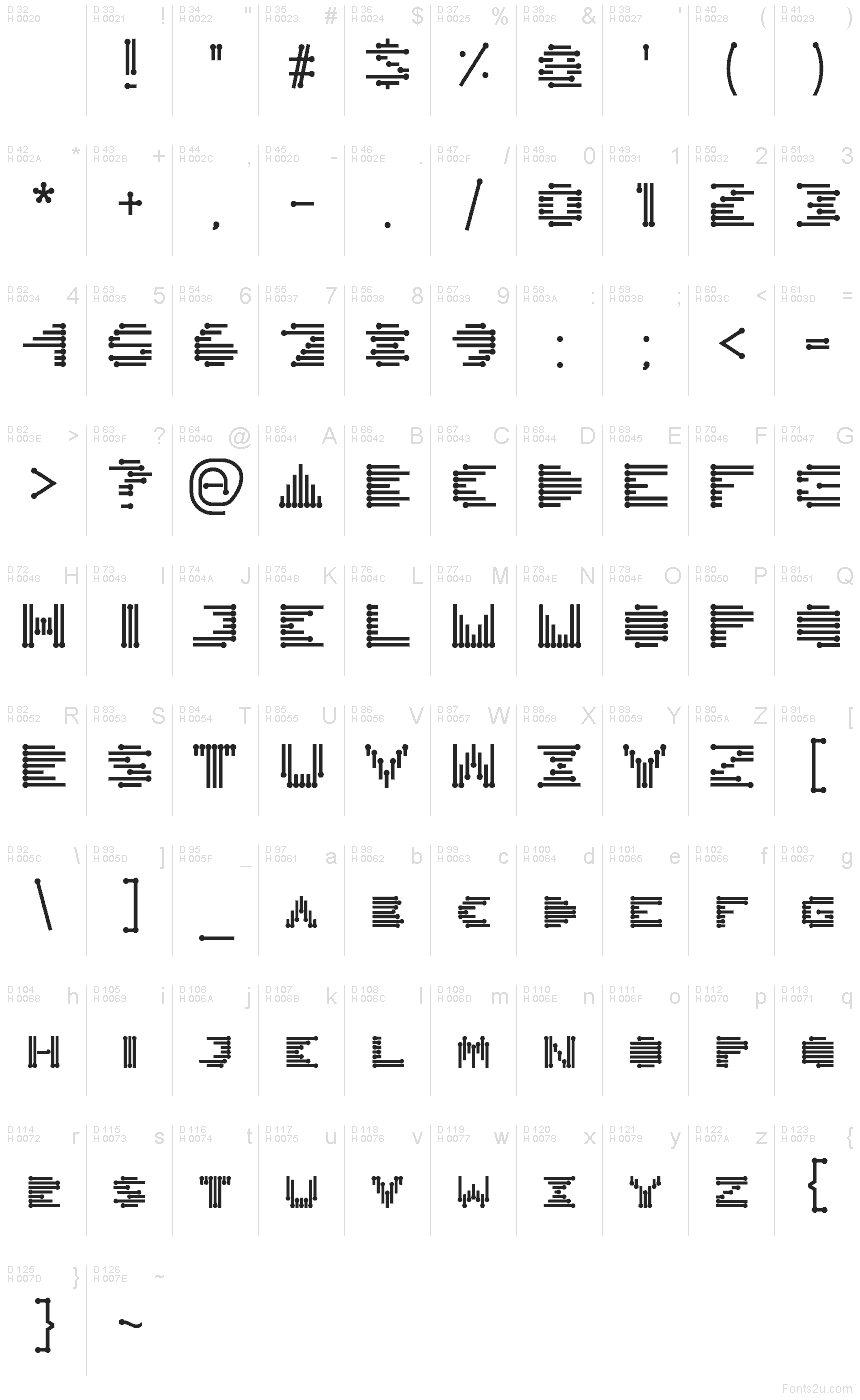
Music Volume Bold font by Galih Nugroho is a free techno display typeface from the Music Volume family. Its letters are built from stacked bars and rounded fader-like strokes, echoing an equalizer in motion. The rhythm feels syncopated yet orderly, giving headlines a pulsing, club-ready energy that snaps into focus at large sizes and on screens.
This free font shines on EDM festival posters, DJ logos, album covers, motion graphics titles, event flyers, streaming thumbnails, and nightclub signage. Using Music Volume Bold instantly signals sound and movement without a single icon. Pair it with a plain geometric sans for body copy and let the bars lead; tighten line spacing and keep tracking modest to maintain the beat.